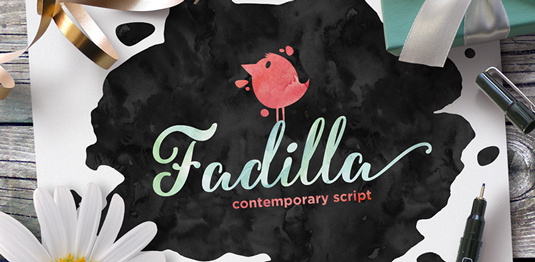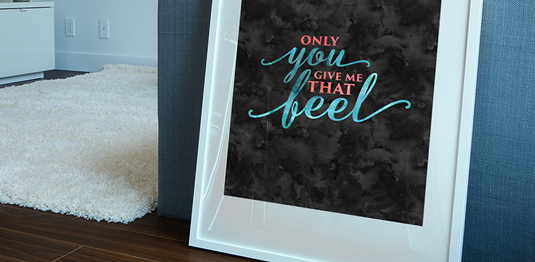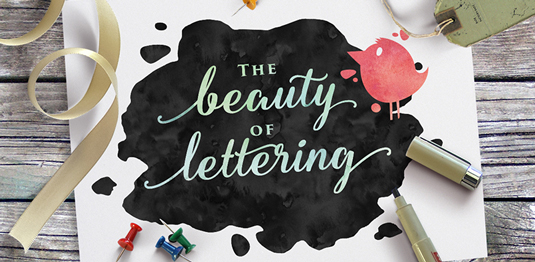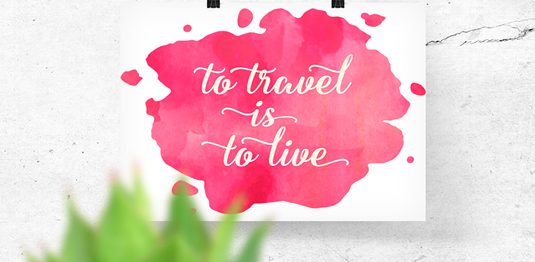
Font of the day: Fadilla
Fadilla from Artimasa
Contemporary script font Fadilla comes from the small lettering and type design studio Artimasa. Available from HypeForType, Fadilla is described as being 'an open invitation to good design. The flowing calligraphy finish manages to be both elegant and warm at the same time, exactly what you'd want from an invite to a wedding or special occasion. Fadilla is a contemporary calligraphy typeface which is flowing, feminine, and elegant'.